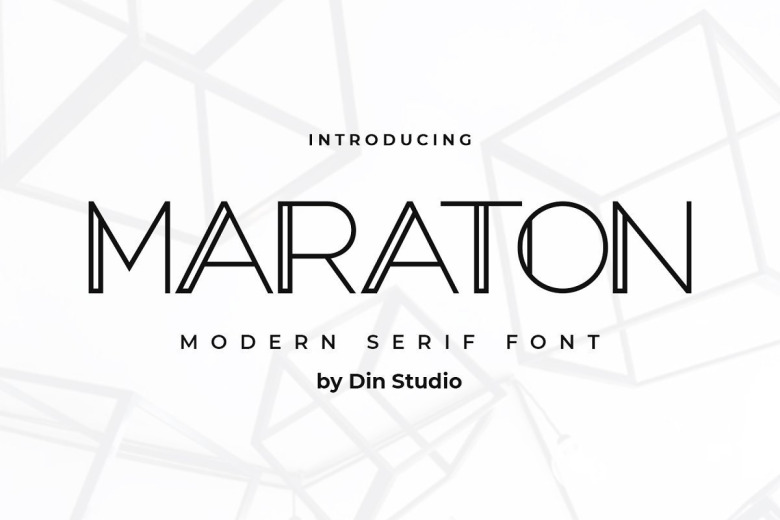
Maraton Modern Sans Display Font
Maraton Display Font is a modern sans typeface. Made for any professional project branding. This type of font perfectly made to be applied especially in headlines which is need a standout font, and the other various formal forms.